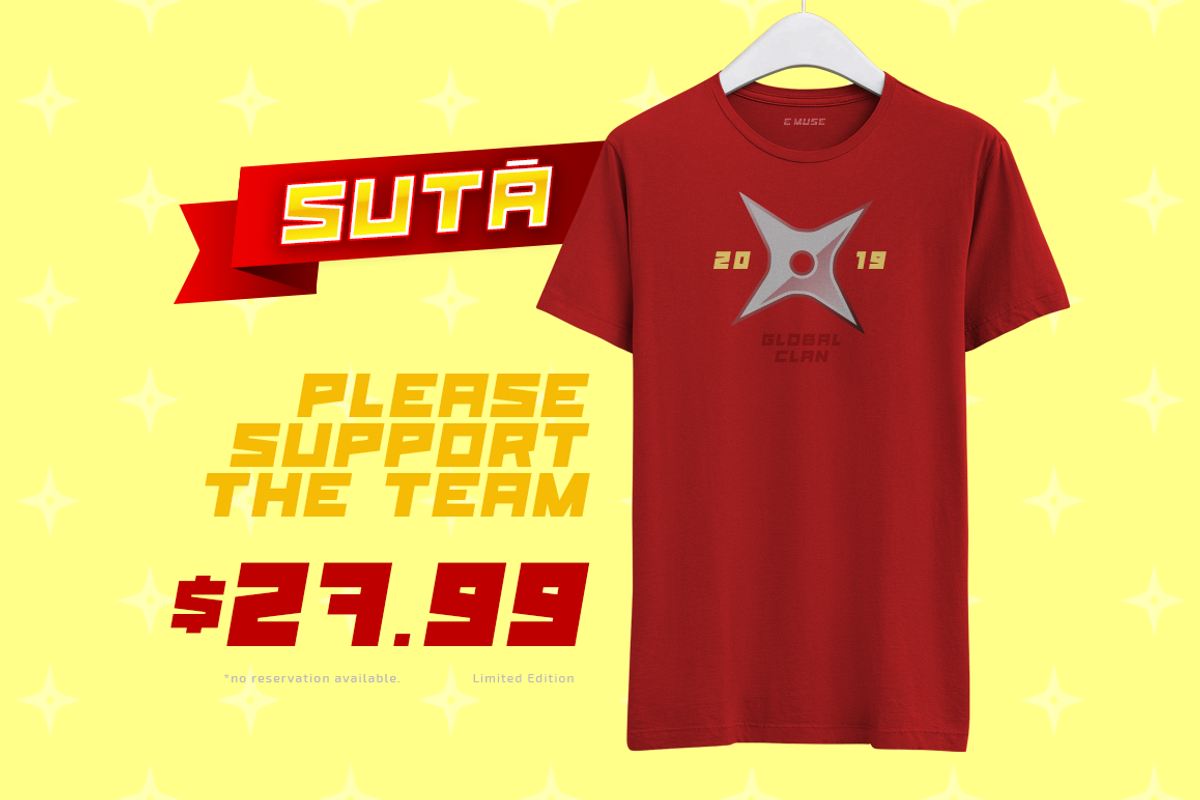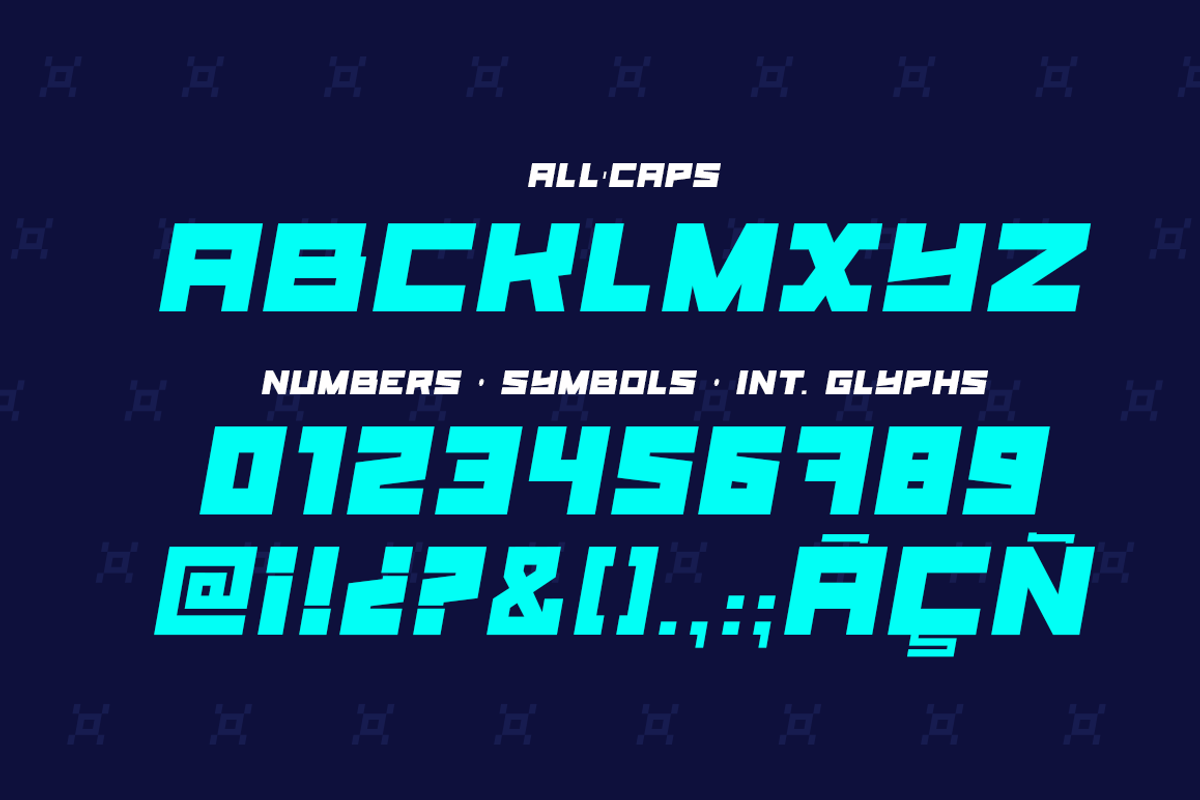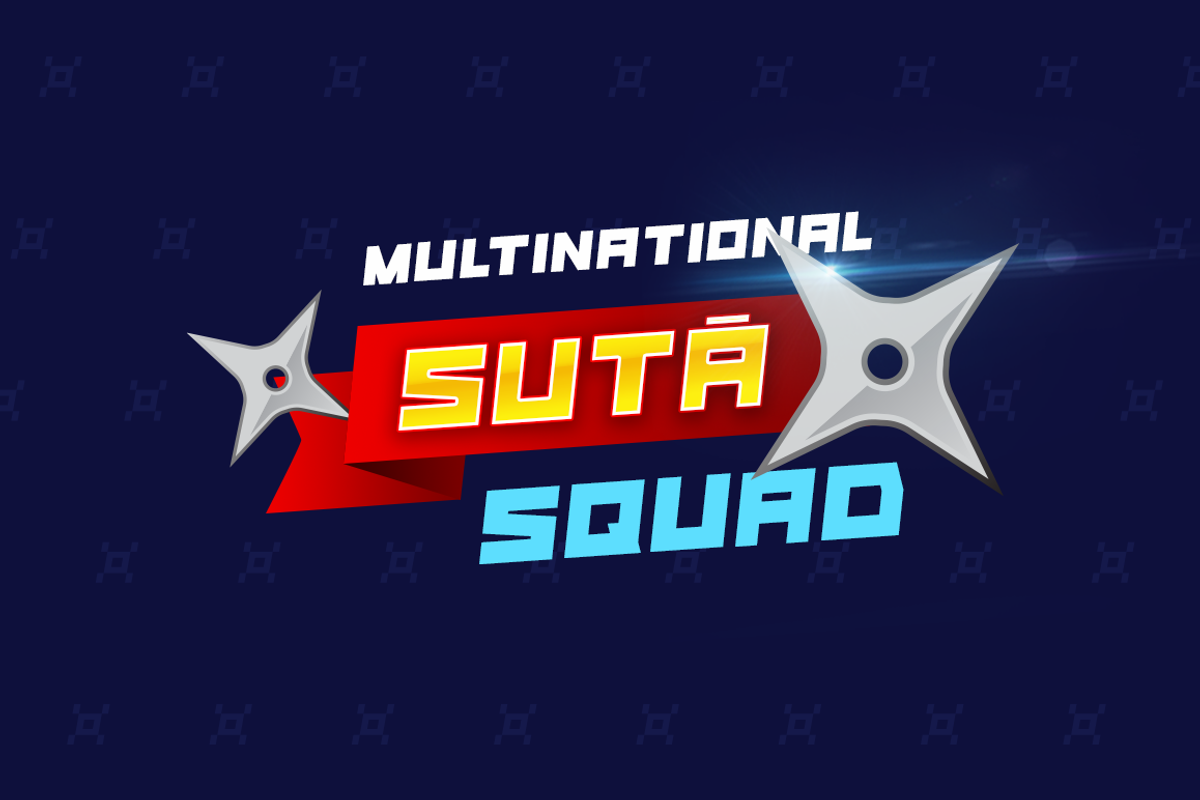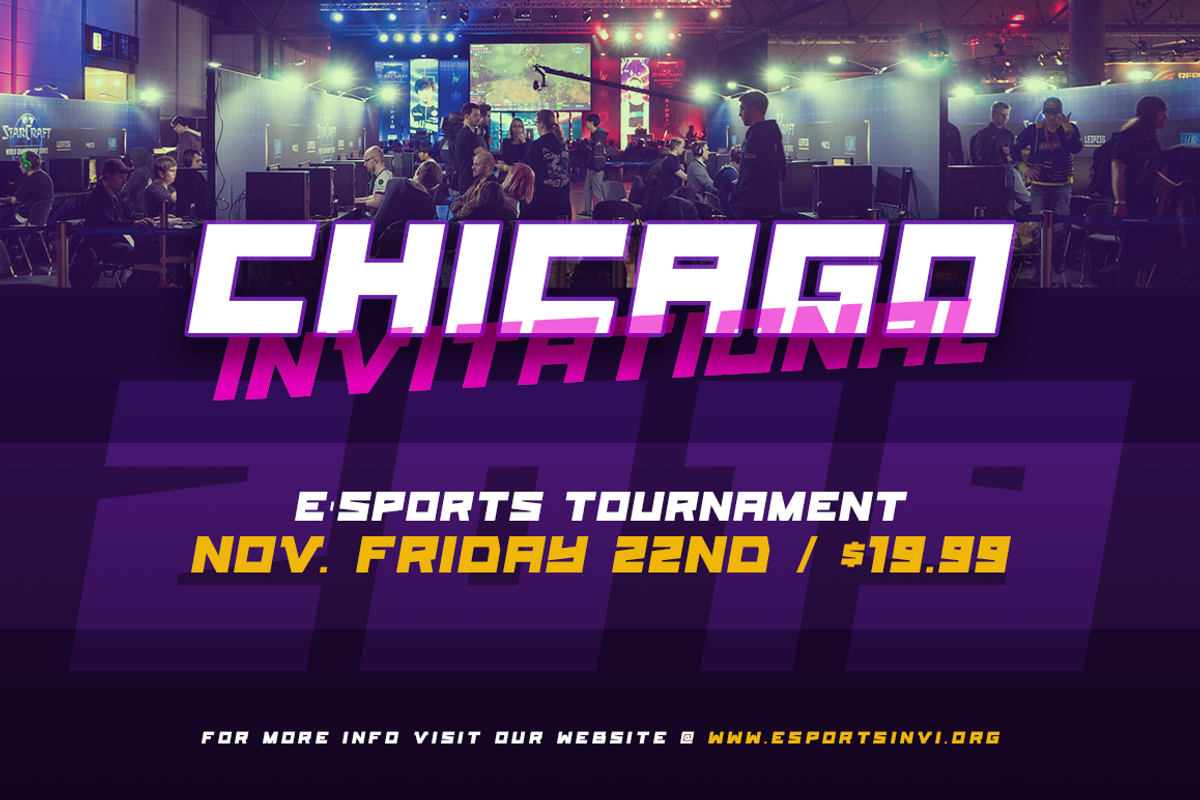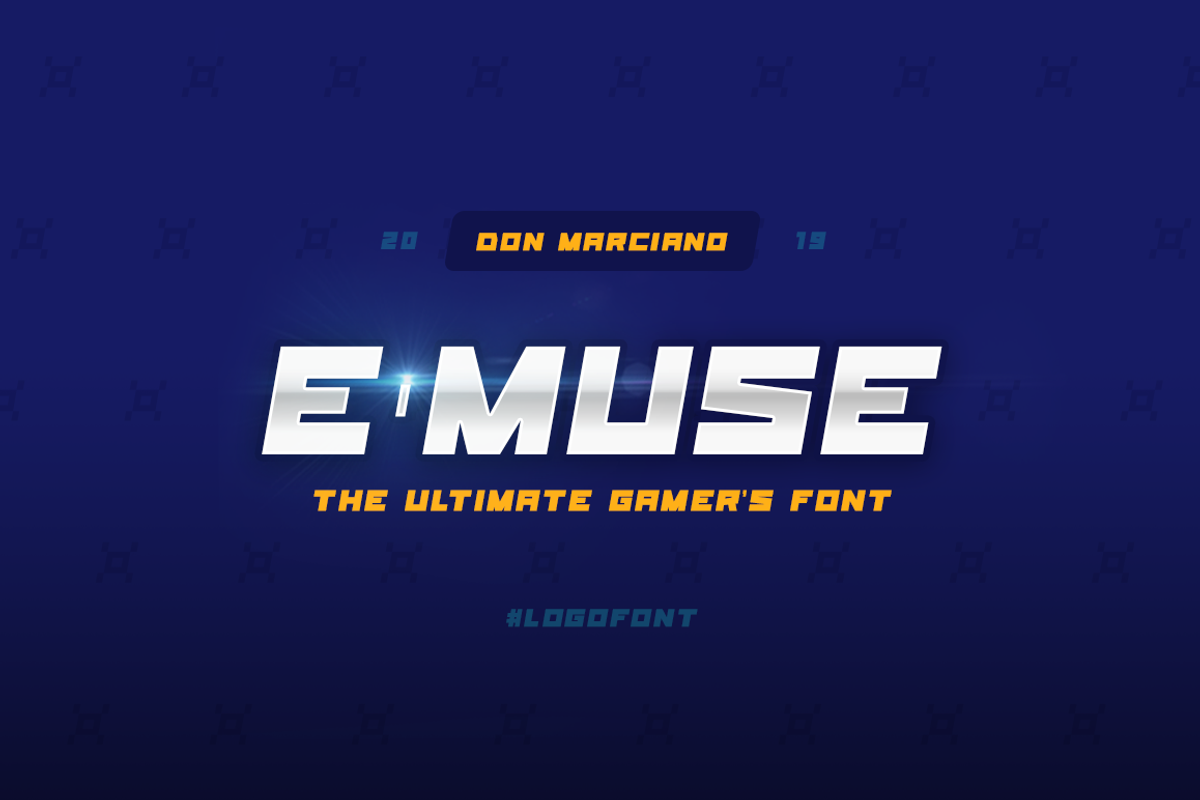
E-Muse Sports Font
E-Muse is a strong & bold style font, design for a eSports related project that needed a particular style of font, here is the title weight design, especially good for short memorable words; with straight lines and sharp corners E-Muse comes to help you make a big statement, show off your skills and let’s make the impossible play.